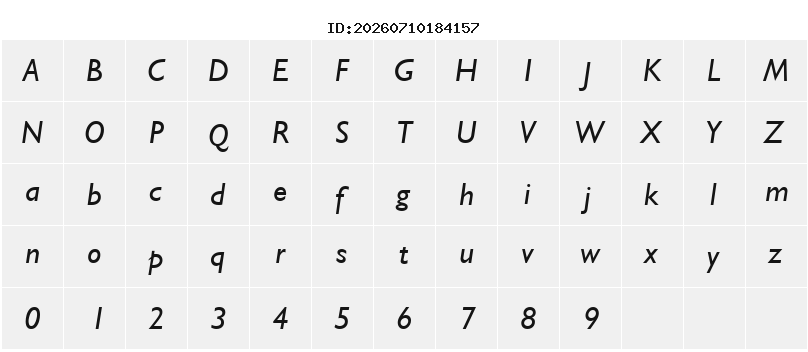
Garrison Light Sans Preview
• Font Name: Garrison Light Sans
• Font Style: BOLDITALIC
• Full Font Name: Garrison Light Sans BOLDITALIC
About Garrison Light Sans.ttf
Garrison Light Sans.ttf is a modern, elegant sans-serif font designed for ultimate readability and visual harmony. Perfect for branding, headlines, web design, and print materials.